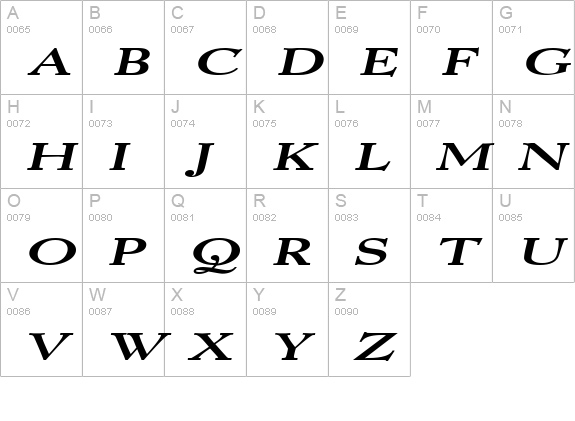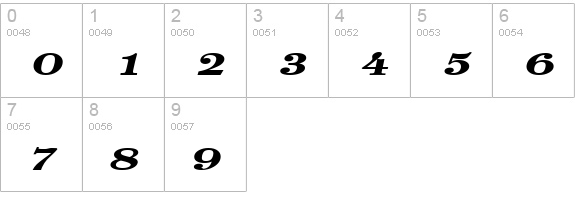
Luciano Extended BoldItalic is a distinctive, extended-width variant in the Luciano typeface family \xE2\x80\x94 well suited to design and typography projects.
The Luciano Extended BoldItalic font is a bold and dynamic typeface that exudes a sense of sophistication and modernity. Its sleek and stylish design makes it perfect for creating eye-catching headlines, posters, and branding materials. The unique combination of bold strokes and italicized letterforms adds a touch of elegance to any design project. And the best part? Luciano Extended BoldItalic font is available for free download at FontsMarket.com! This means you can easily access this versatile and professional font to enhance your creative projects without any cost. Don't miss out on the opportunity to elevate your designs with the striking Luciano Extended BoldItalic font today!